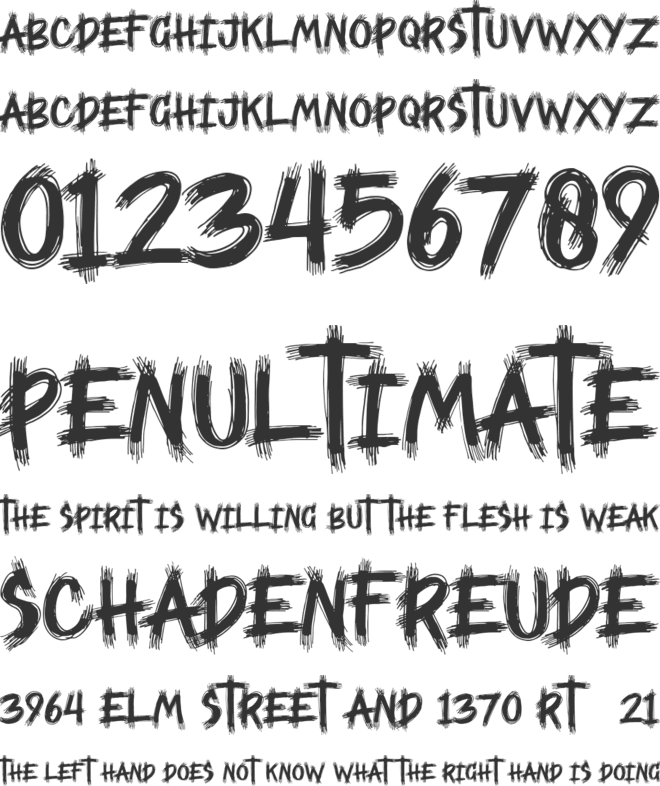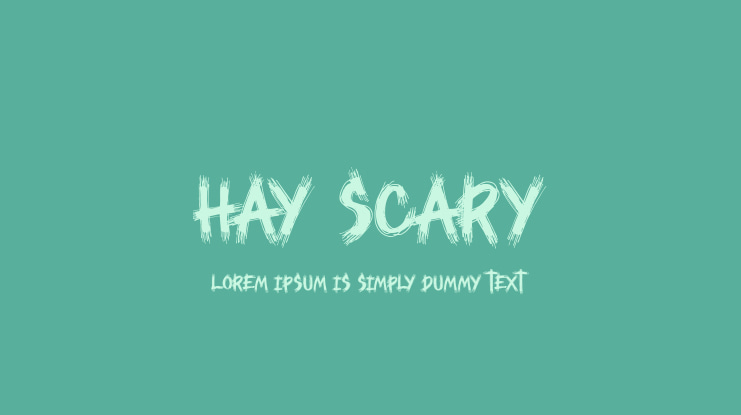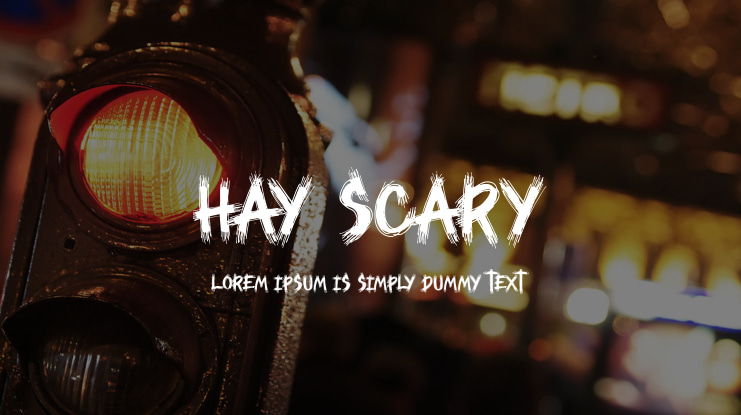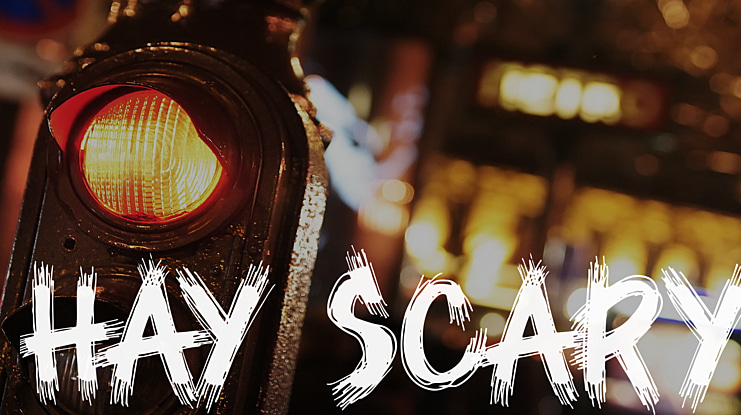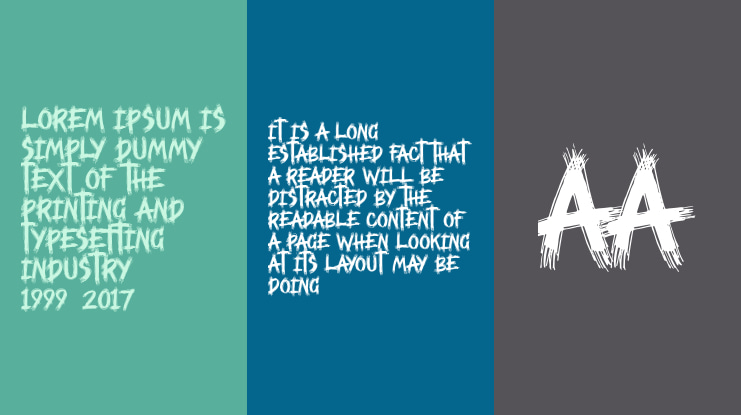
This is a Halloween-themed display font featuring a creative style that will make your designs stand out.
Please use it on any creative design, and cherish your Halloween with this font to make it more festive.